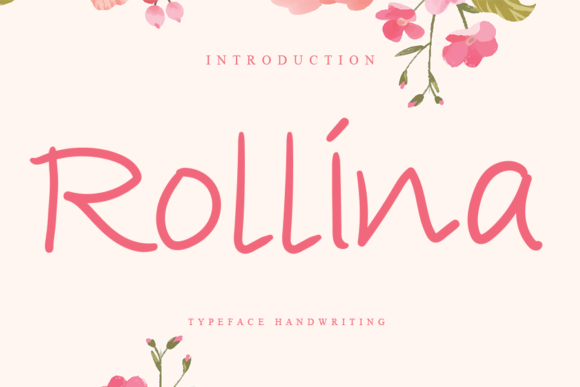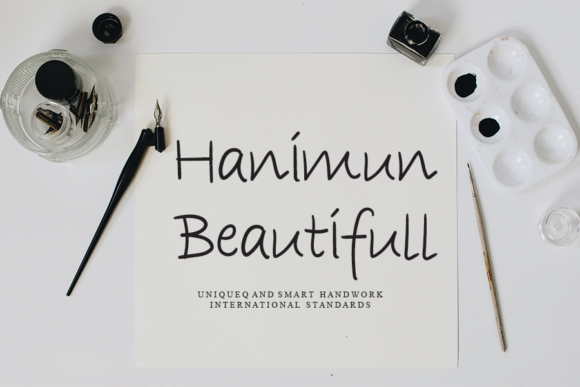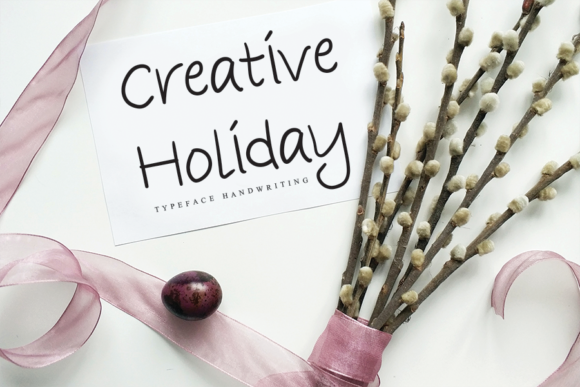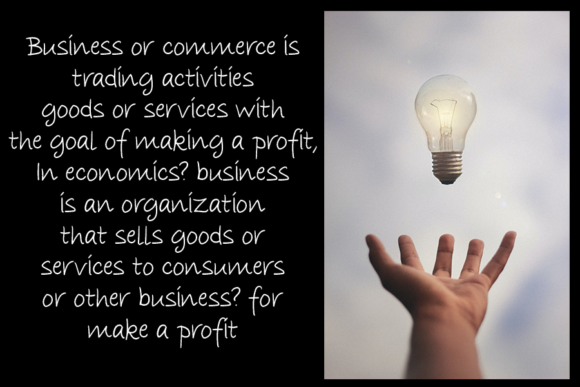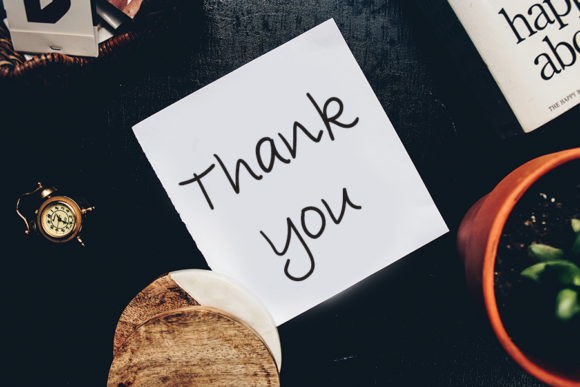
Rollina Font
About Rollina Font
Rollina is a friendly handwritten font with a modern style. It will elevate a wide range of design projects to the highest level, be it branding, headings, wedding designs, invitations, signatures, logos, labels, and much more!